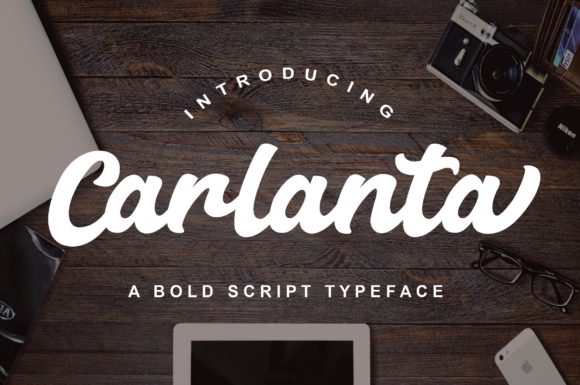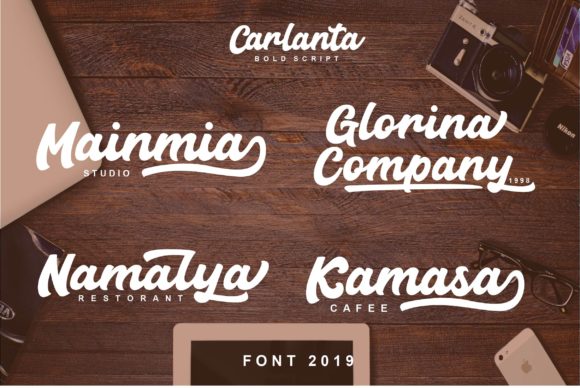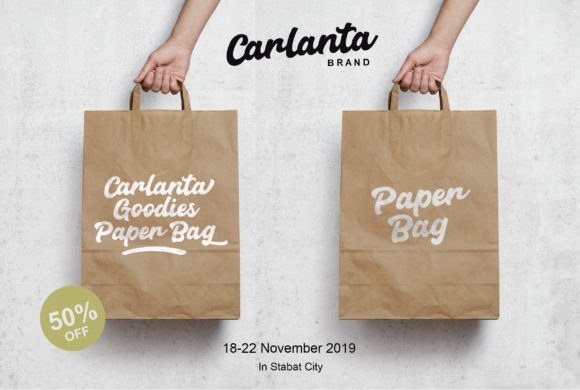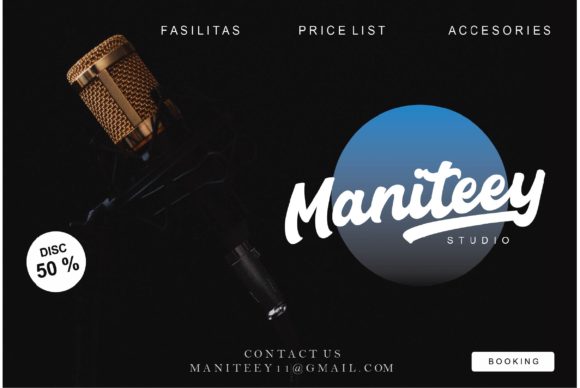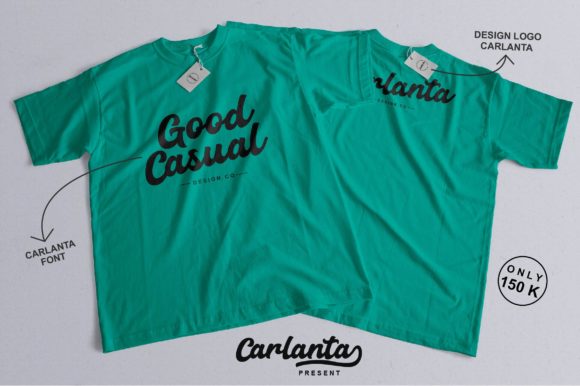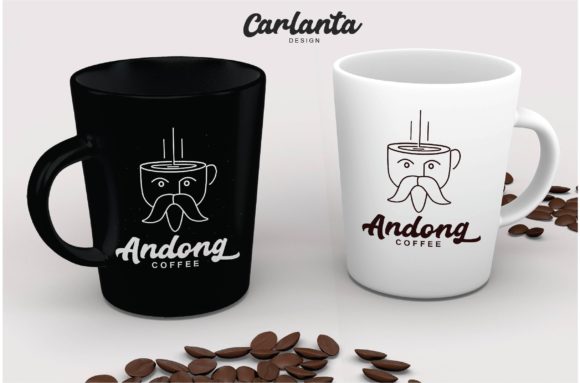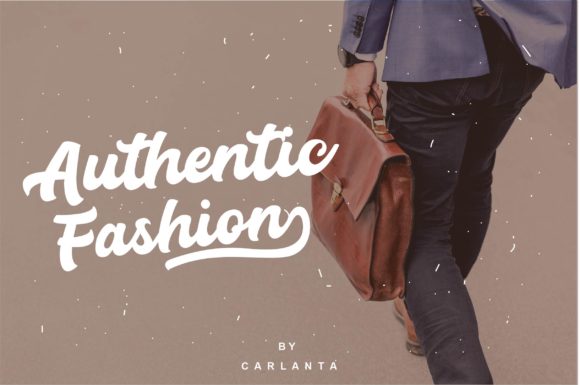
Carlanta Font
About Carlanta Font
Carlanta is a beautiful monoline script with a vintage feel. It will make any message look elegant and approachable.